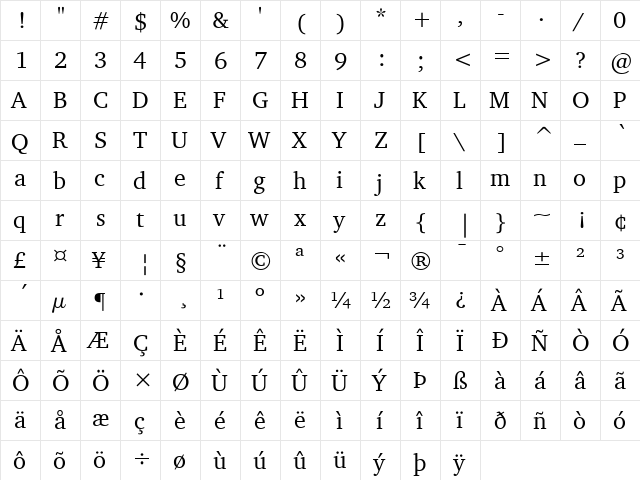
LeedsBit EuroWest Normal
Design Context for LeedsBit EuroWest Typeface
LeedsBit EuroWest takes a measured approach to typography — its balanced proportions and neutral character make it a reliable workhorse for both digital and print work.